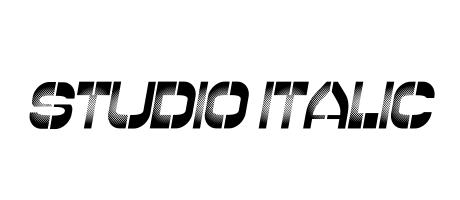
Studio
Studio Italic is a bold, slanted sans-serif typeface. Its chunky, uppercase letters have a subtly distressed, almost metallic look due to a gradient shadow effect, giving it a slightly futuristic or retro feel. The italic slant adds dynamism and a sense of speed. The design is confident and impactful.
Vladimir Nikolic